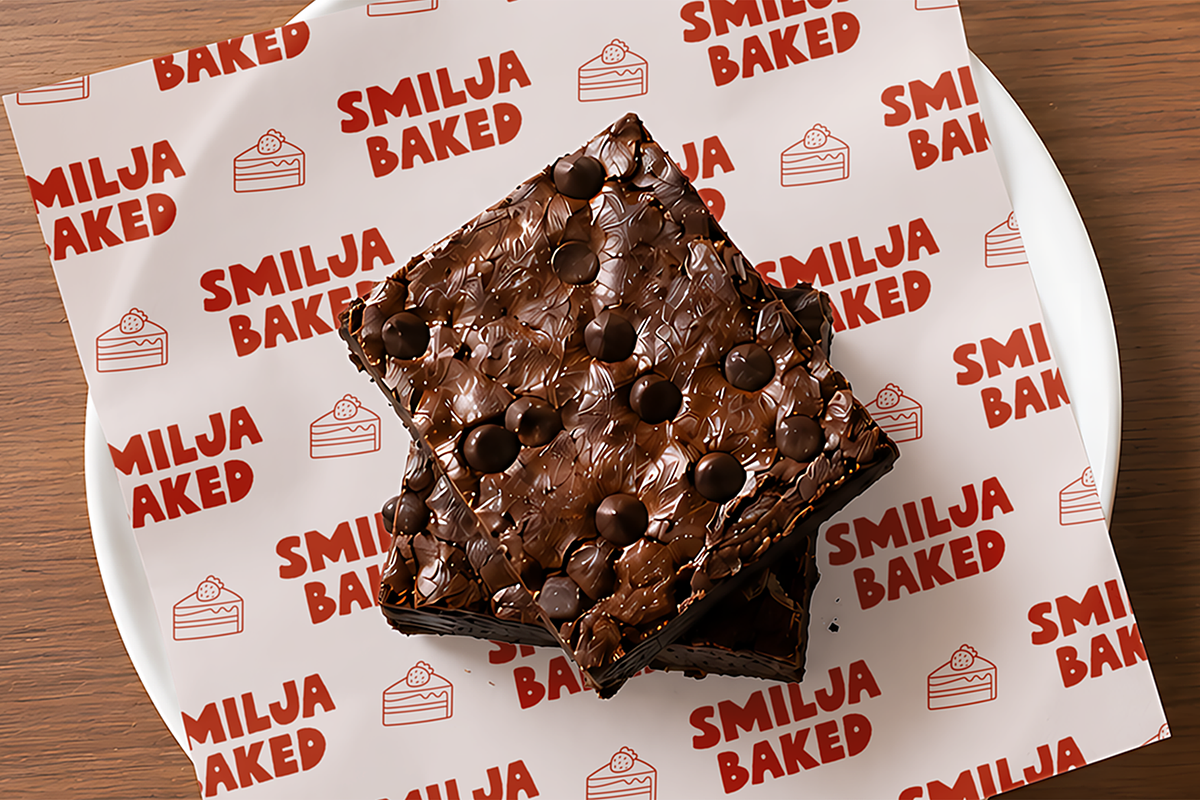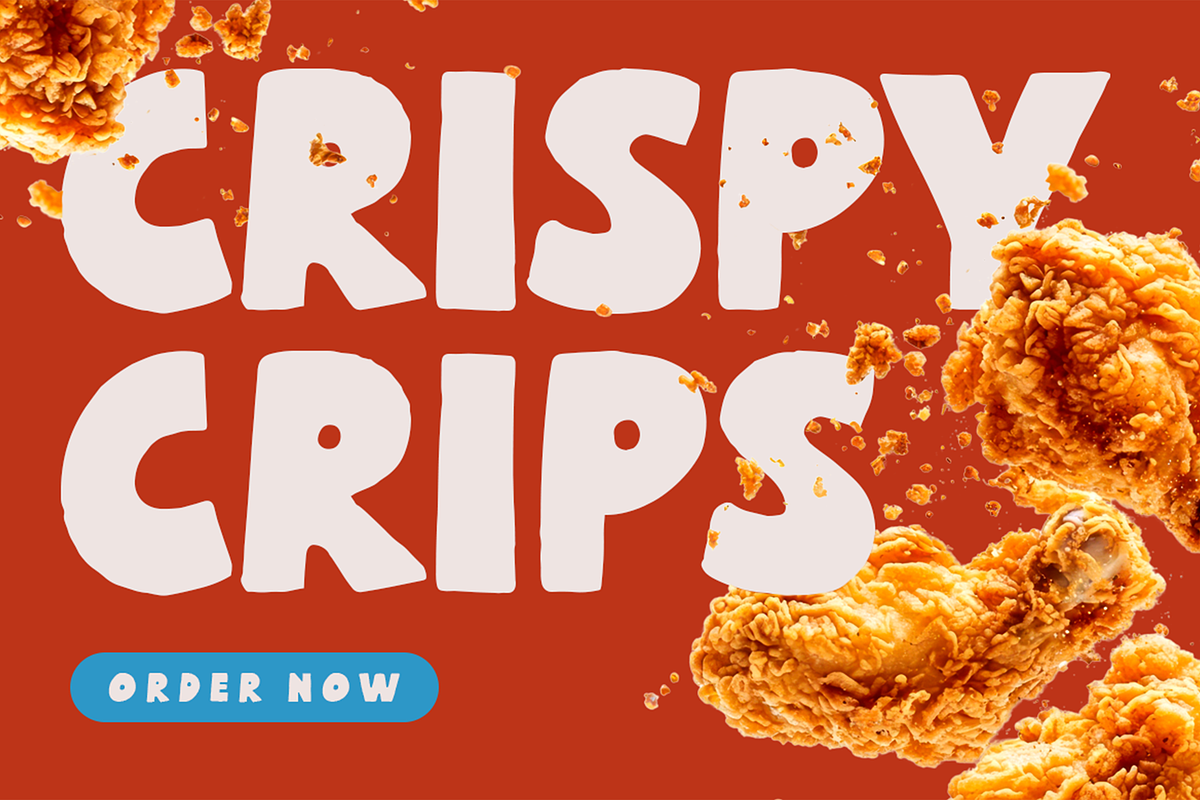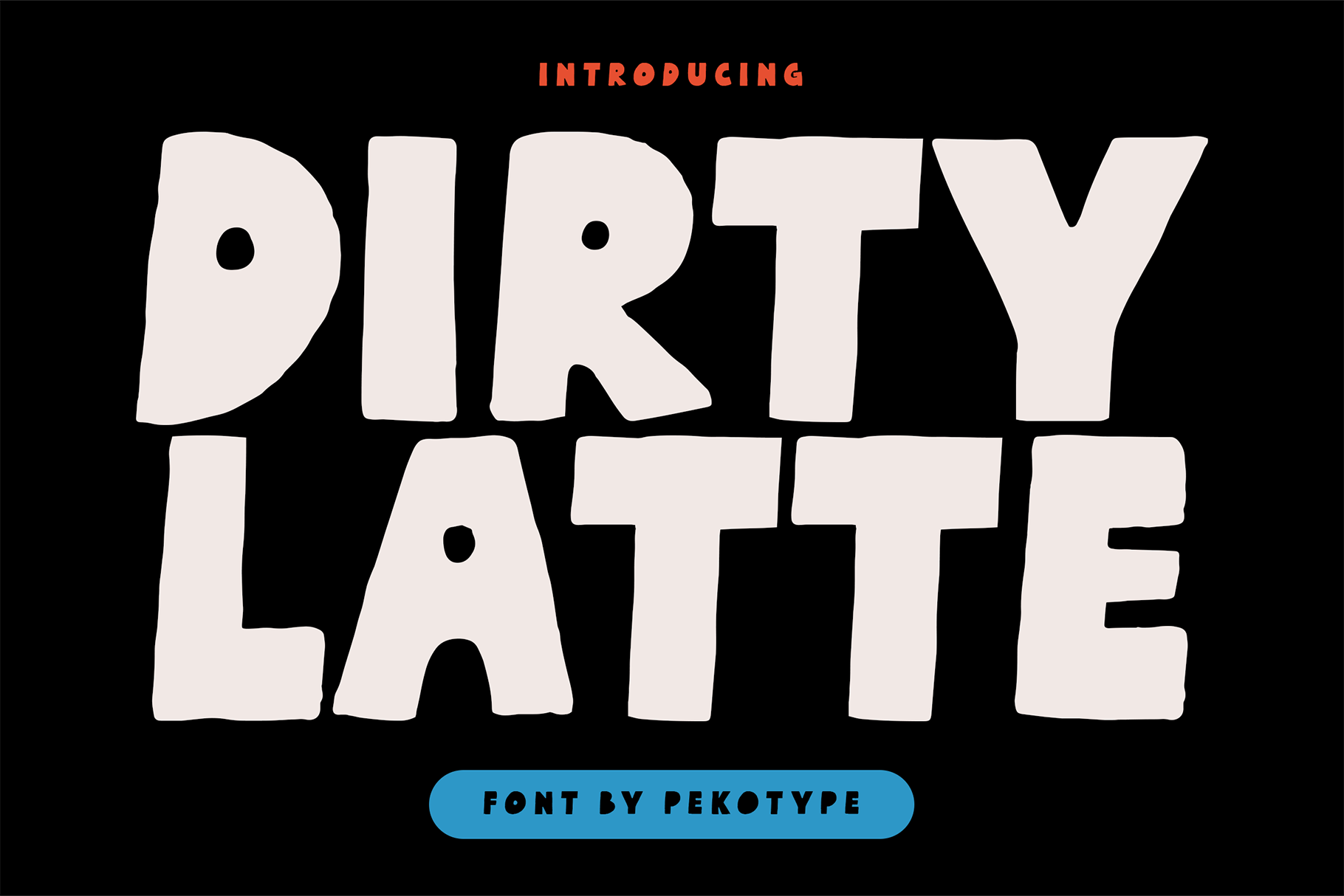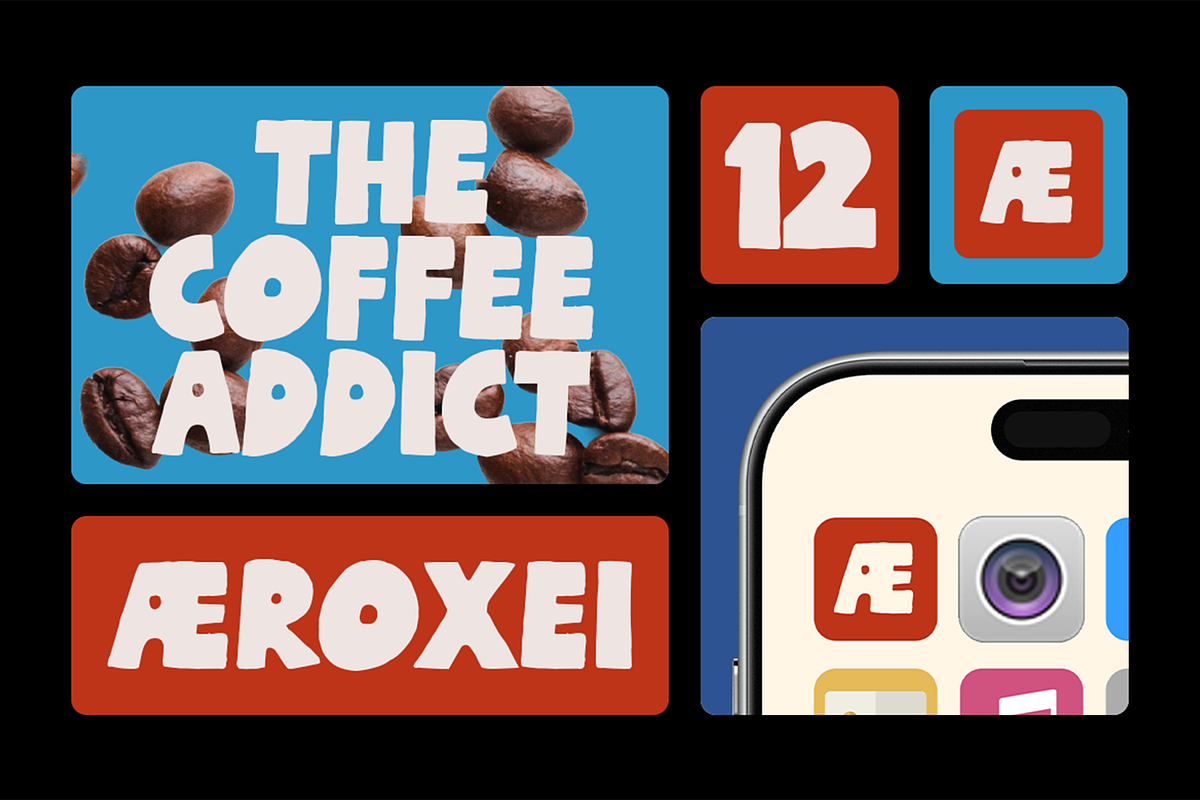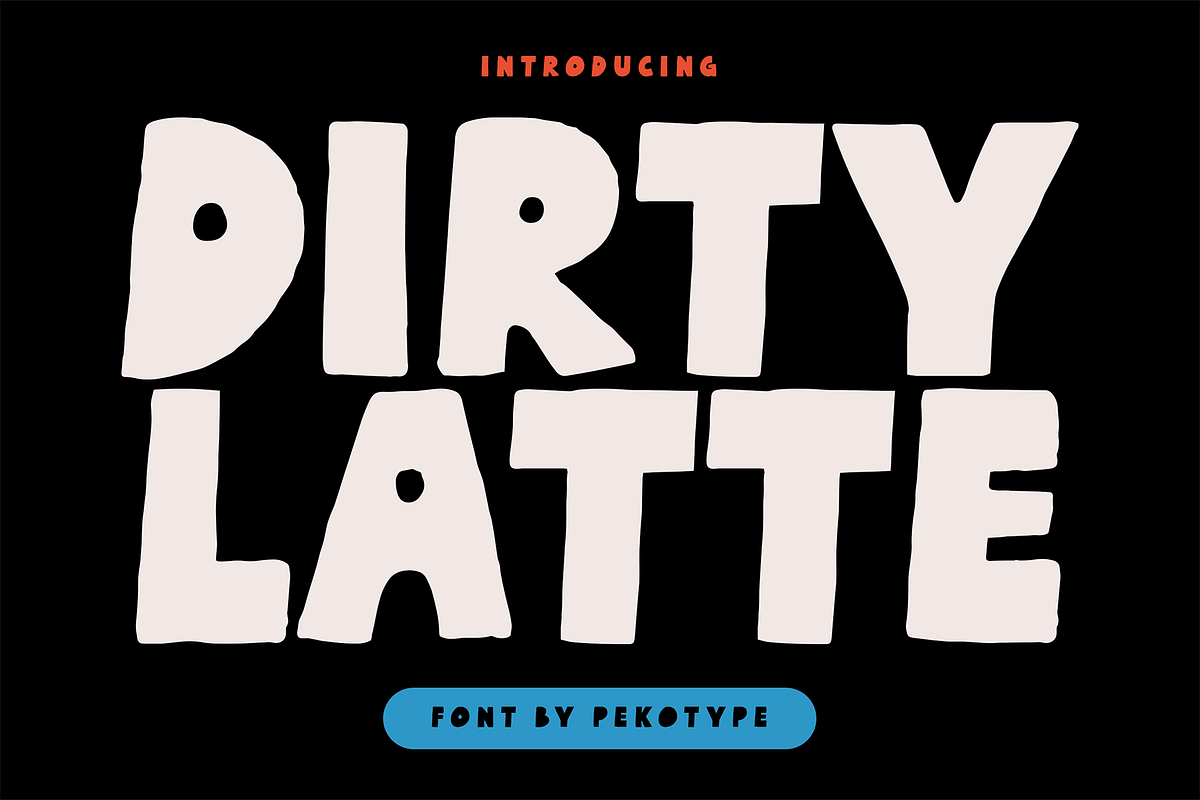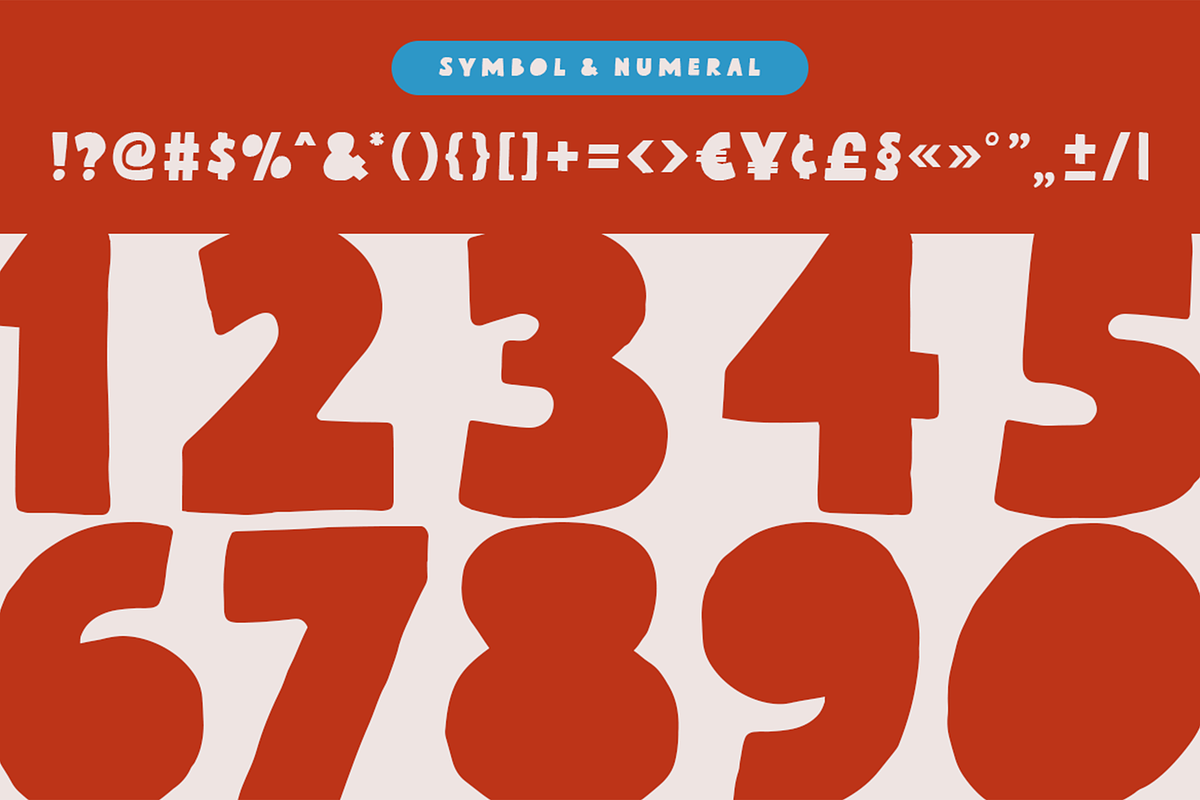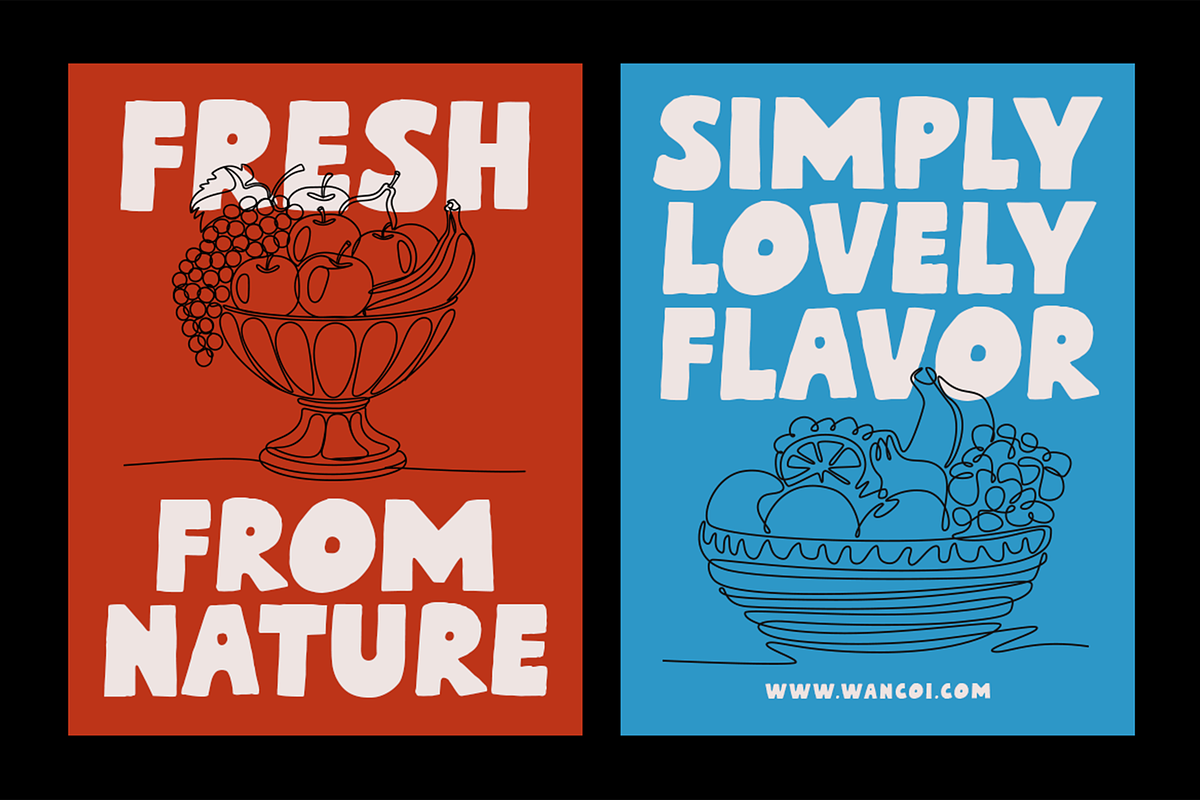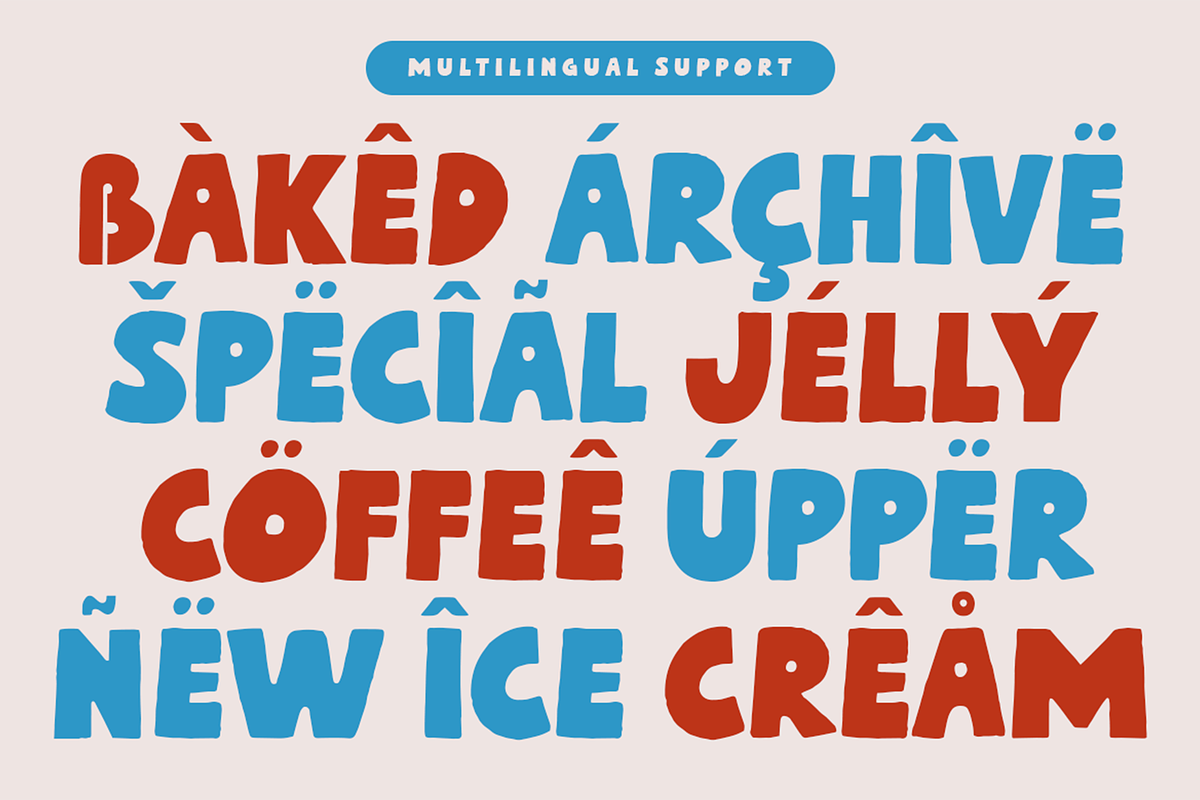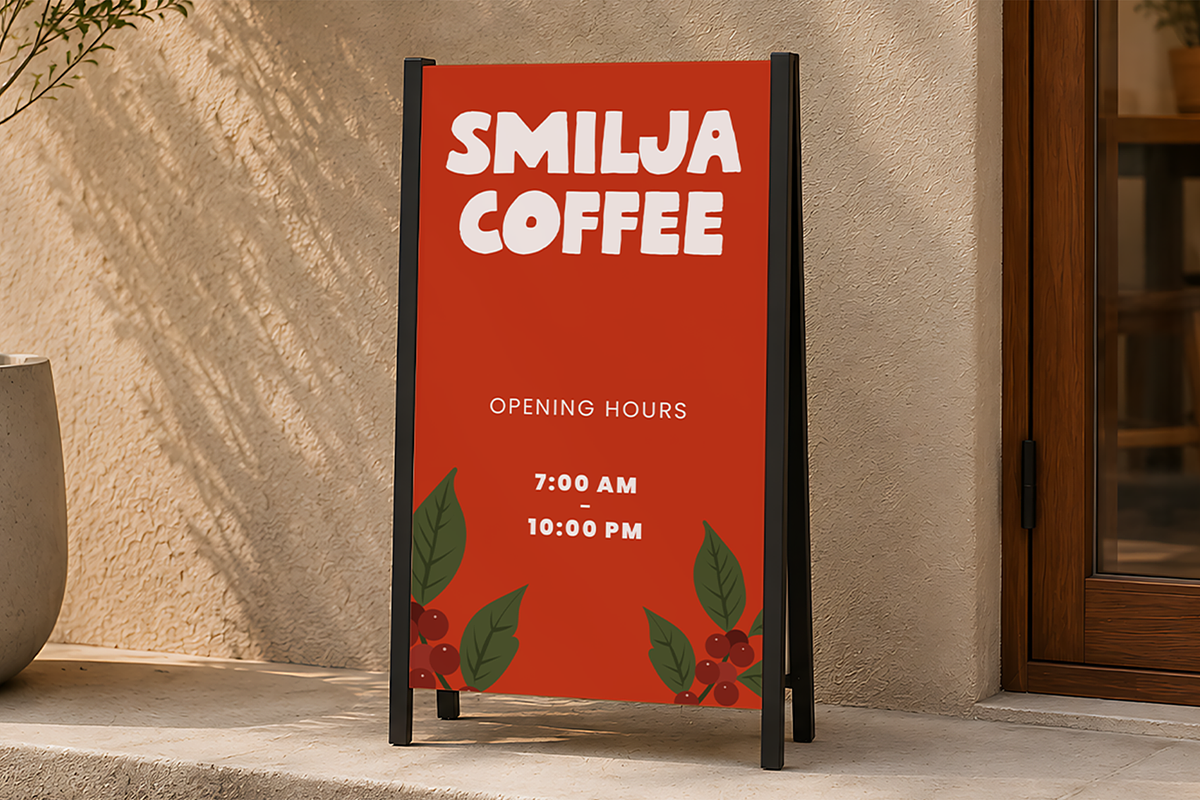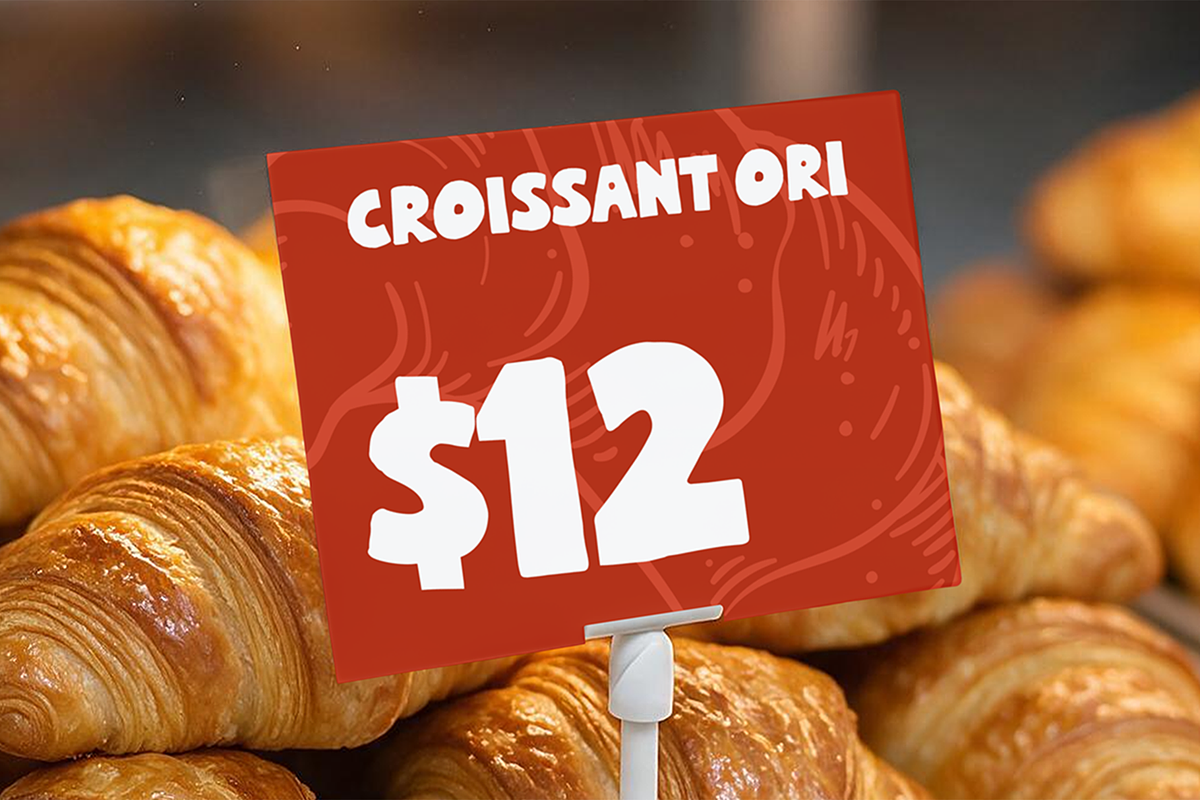
Dirty Latte - Cafe Logo Font
**Dirty Latte **is a bold hand drawn café logo font with chunky letterforms and an organic handmade style. Its playful shapes bring a warm and friendly personality, making every headline feel bold, inviting, and full of character.
Perfect for café logos, coffee shops, bakeries, restaurants, food packaging, menus, product labels, posters, social media, merchandise, coffee cups, stickers, branding, and any creative project that needs a bold display font with a handcrafted touch.
* Uppercase & Lowercase
* Numbers, Symbols, & Punctuation
* Multilingual